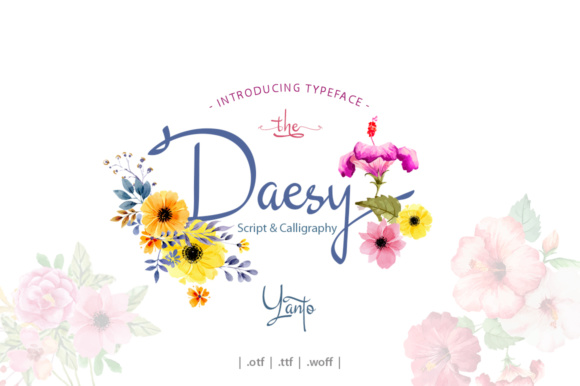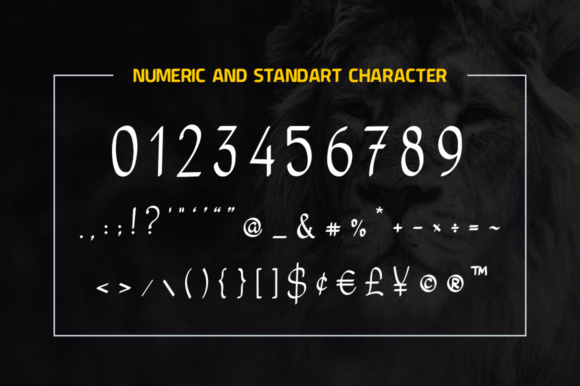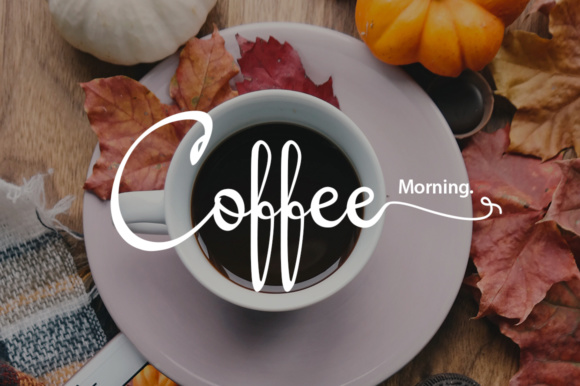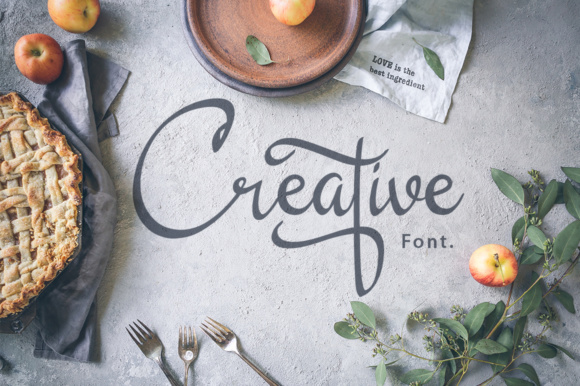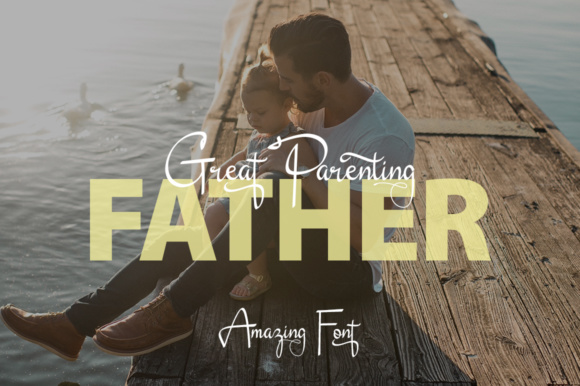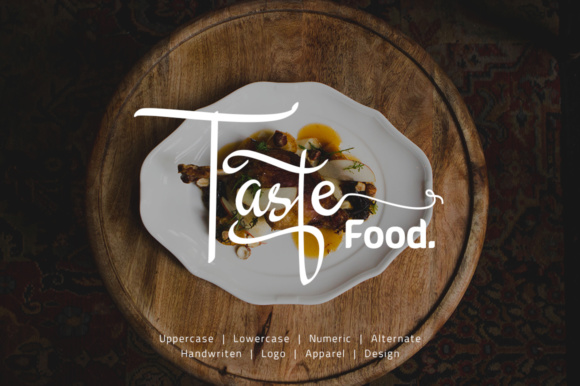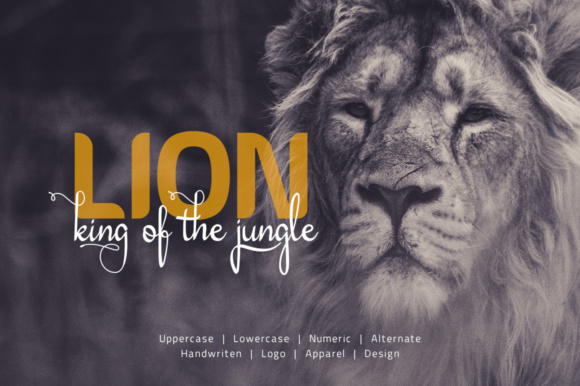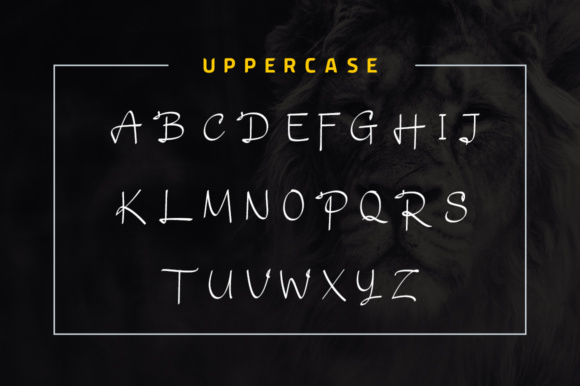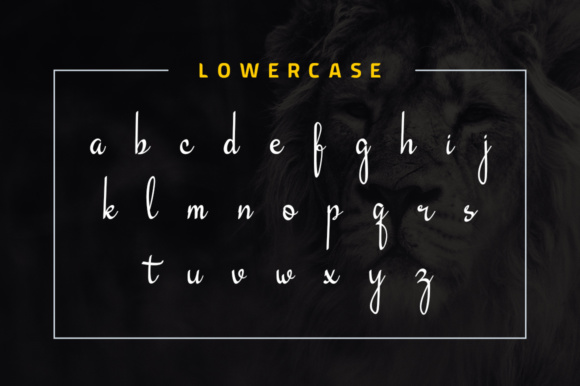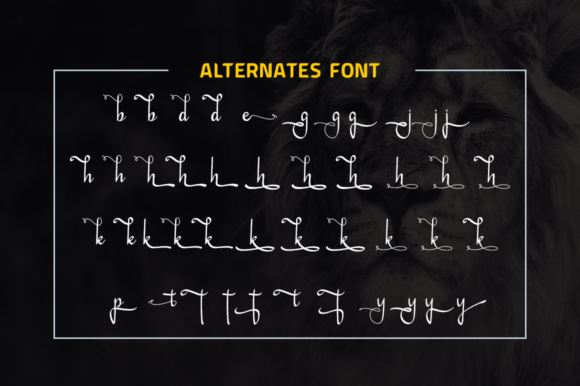
Daesy Script Font
About Daesy Script Font
Daesy Script is a stylish calligraphic-style font that features a varying baseline. It’s smooth and has a classic touch.
Perfect for a large range of uses.